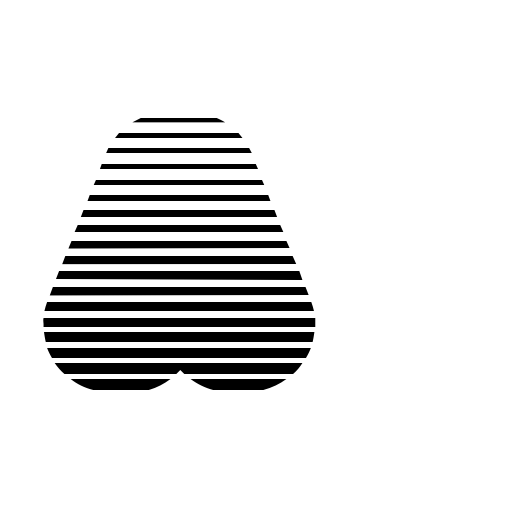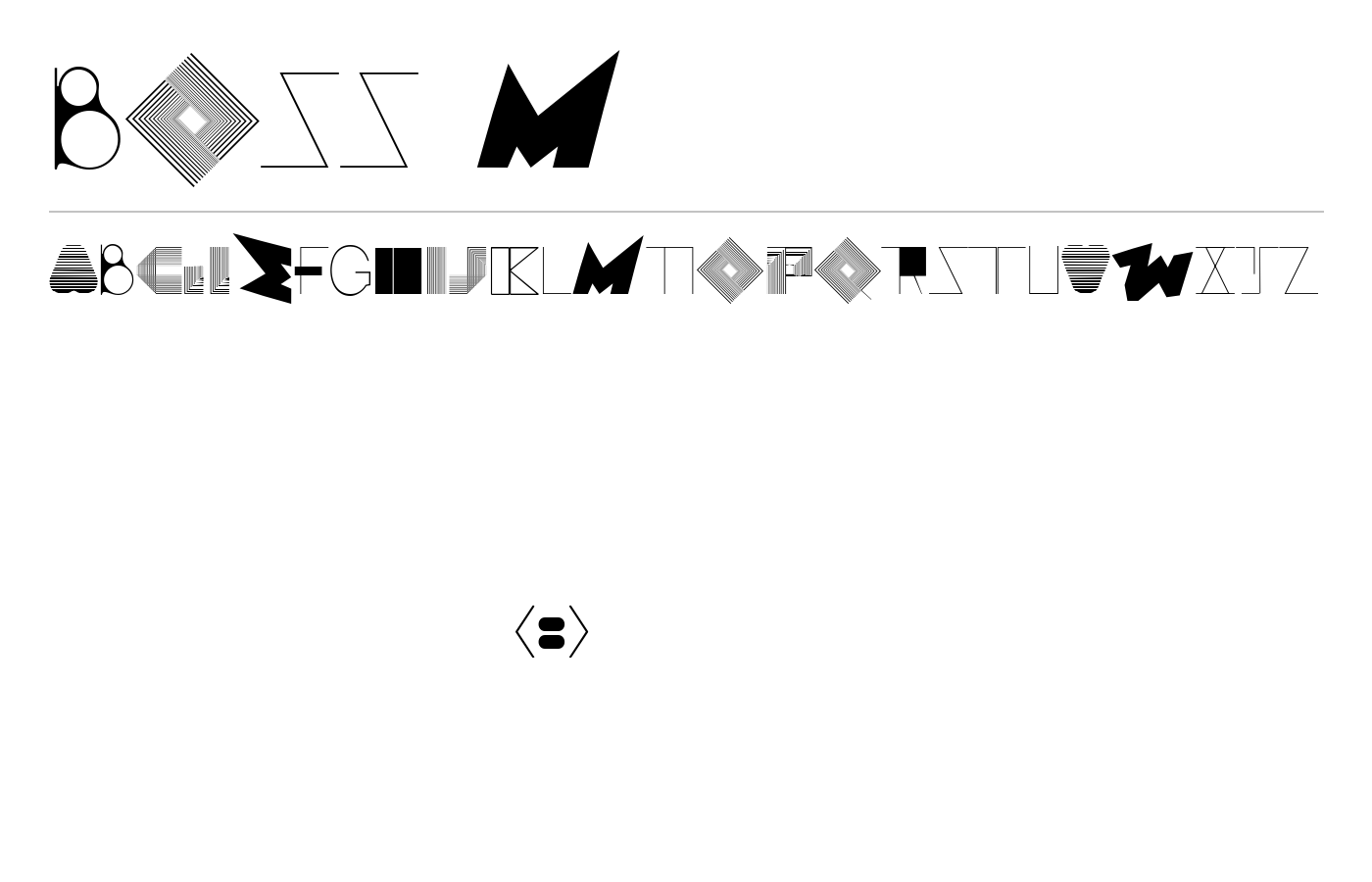
BOSS M is a highly decorative, experimental sans serif font characterized by its varied textures and bold, geometric shapes. Its playful mix of thick, thin, and lined strokes creates a striking visual impact, making it ideal for eye-catching headlines, logos, and artistic branding projects where uniqueness and modern creativity are key. This font excels in designs that seek to convey a bold, avant-garde personality rather than traditional readability.
BOSS M Font
About BOSS M Font